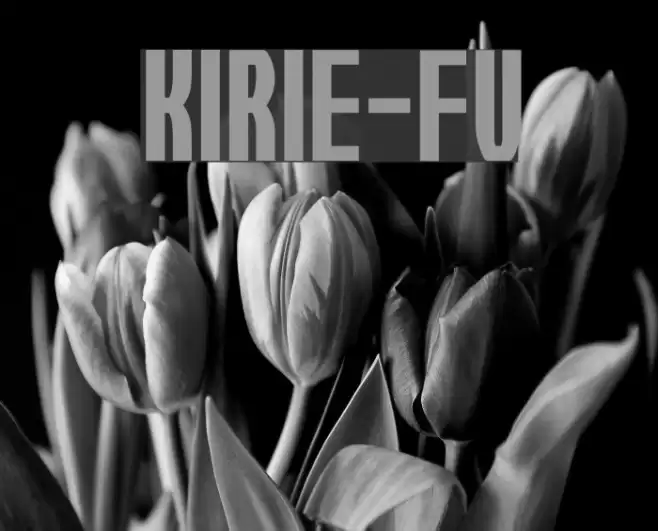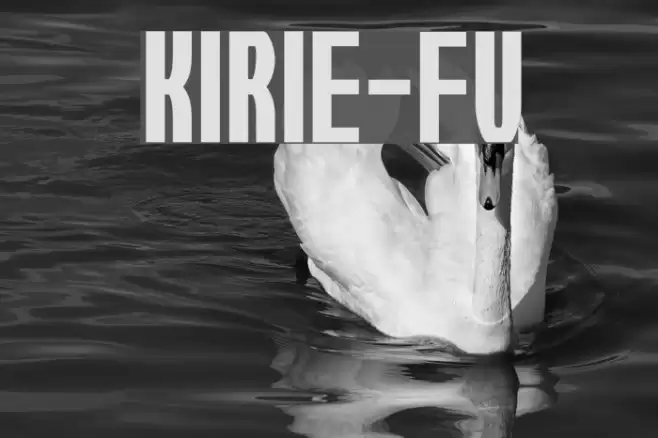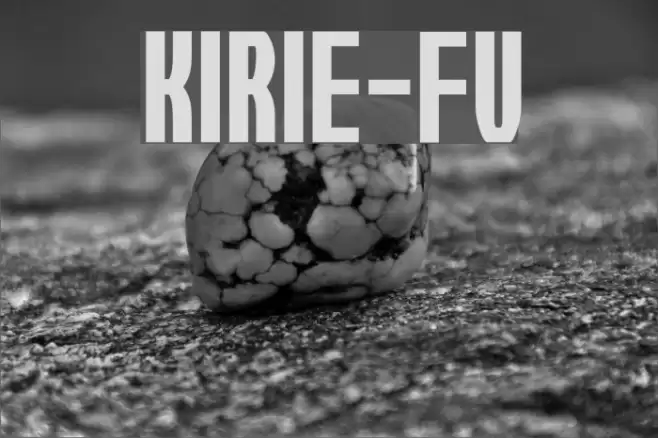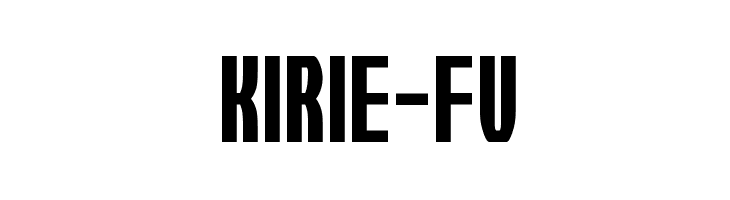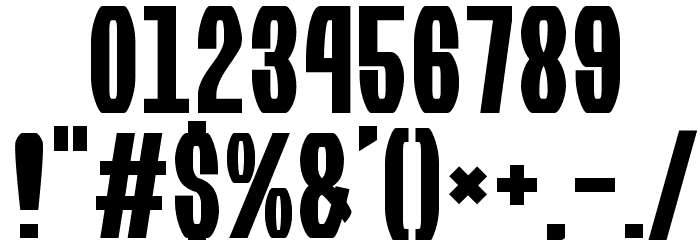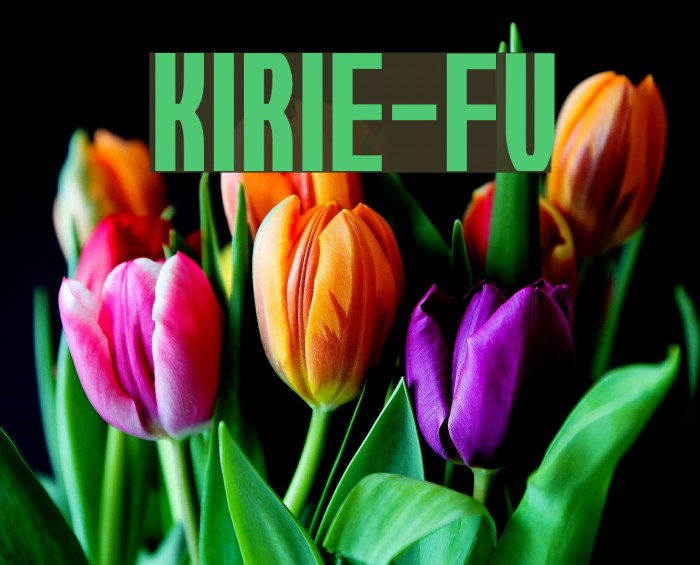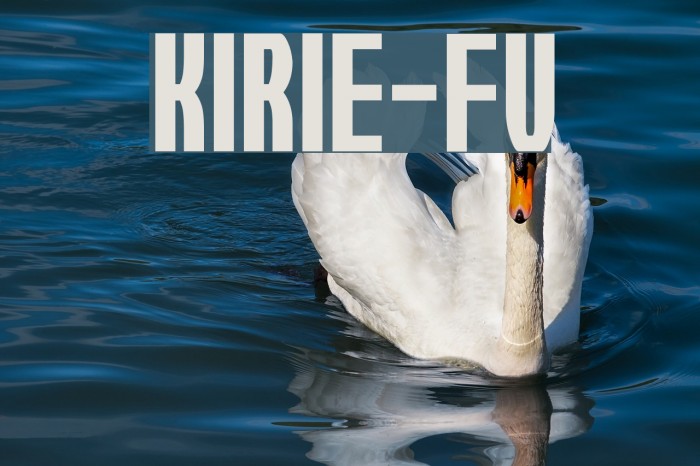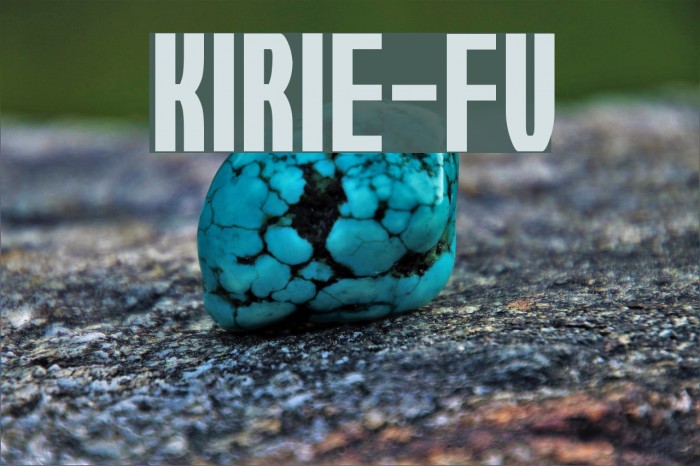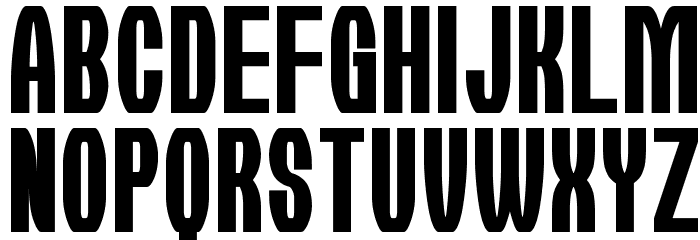
Kirie-Fu Font
Kirie-Fu Description
This font is a bold, impactful display typeface characterized by its thick, uniform strokes and condensed letterforms. The uppercase letters are particularly striking, with a strong vertical emphasis and minimal contrast between thick and thin strokes. The lowercase letters maintain the same boldness, ensuring consistency across the typeface. Numbers and special characters are equally bold, making them stand out in any design. The overall style is modern and assertive, suitable for making a strong visual statement.
A bold, condensed display font with strong vertical emphasis from Uncategorized fonts.
- Font: Kirie-Fu
- Proposed Projects: Ideal for posters, headlines, branding, and any project requiring a strong visual impact.
- Character Spacing: Tight